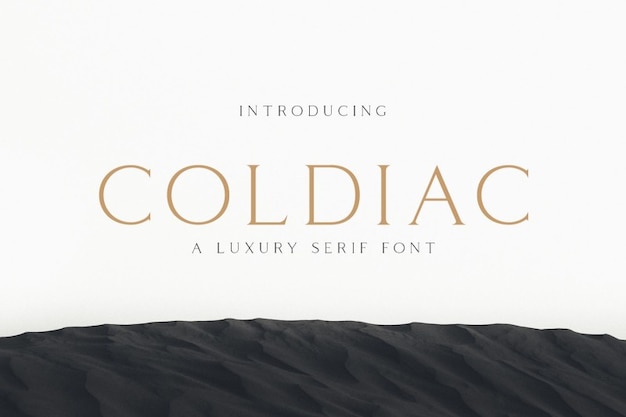
Coldiac
Coldiac Font
Coldiac font is the epitome of modern elegance and simplicity, exuding a luxurious charm that's hard to match. With its sleek and minimalist design, it elevates your projects to a level of sophistication that's both timeless and contemporary. Each character embodies refined beauty, making Coldiac the perfect choice for adding a touch of luxury to your creations. Whether it's branding, invitations, or editorial design, Coldiac effortlessly transforms your text into a statement of elegance and style.